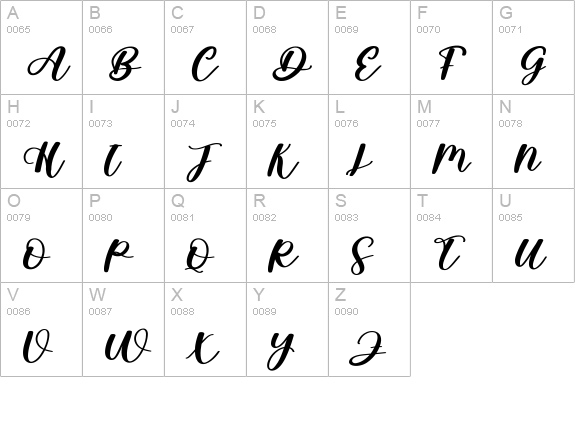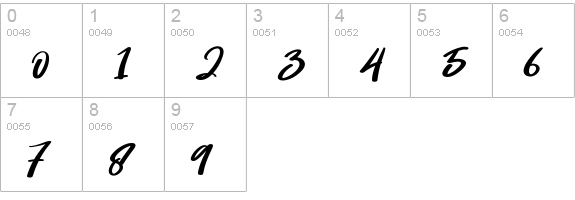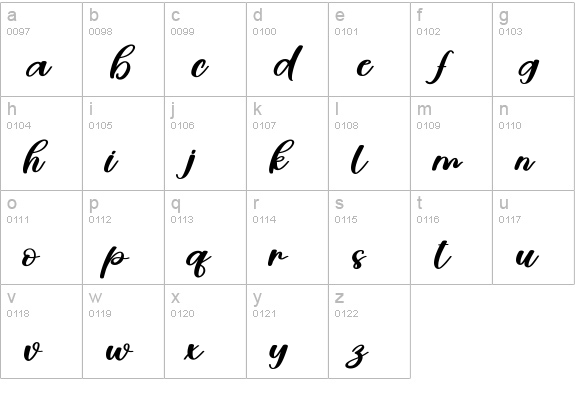
Boba Font Details
Boba is a free for personal use font in the Script > Handwritten category, designed by scratchones. It has been downloaded 54 times and is available for Windows, Mac and Linux.
Introducing Boba font - a stylish and modern typeface perfect for all your design projects. This versatile font features smooth curves and a clean, contemporary look that will elevate any design. Whether you're creating branding materials, posters, invitations, or web graphics, Boba font is sure to make a statement.